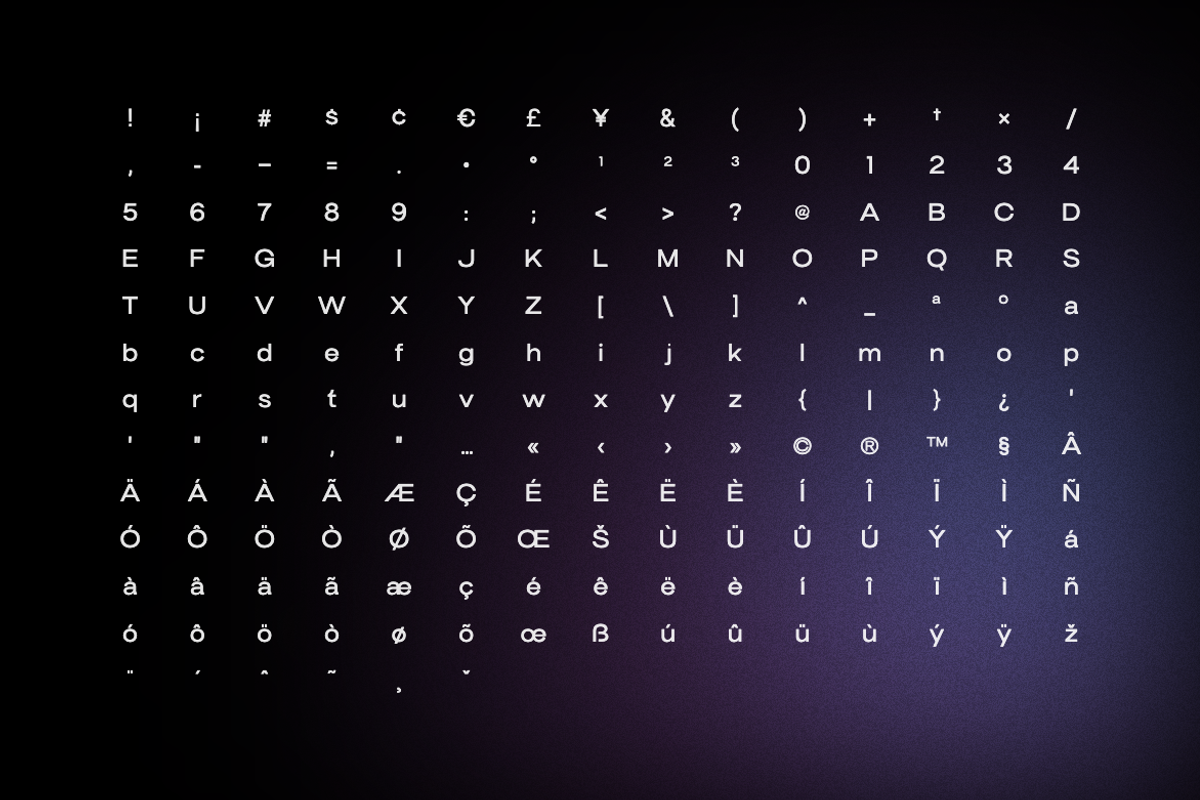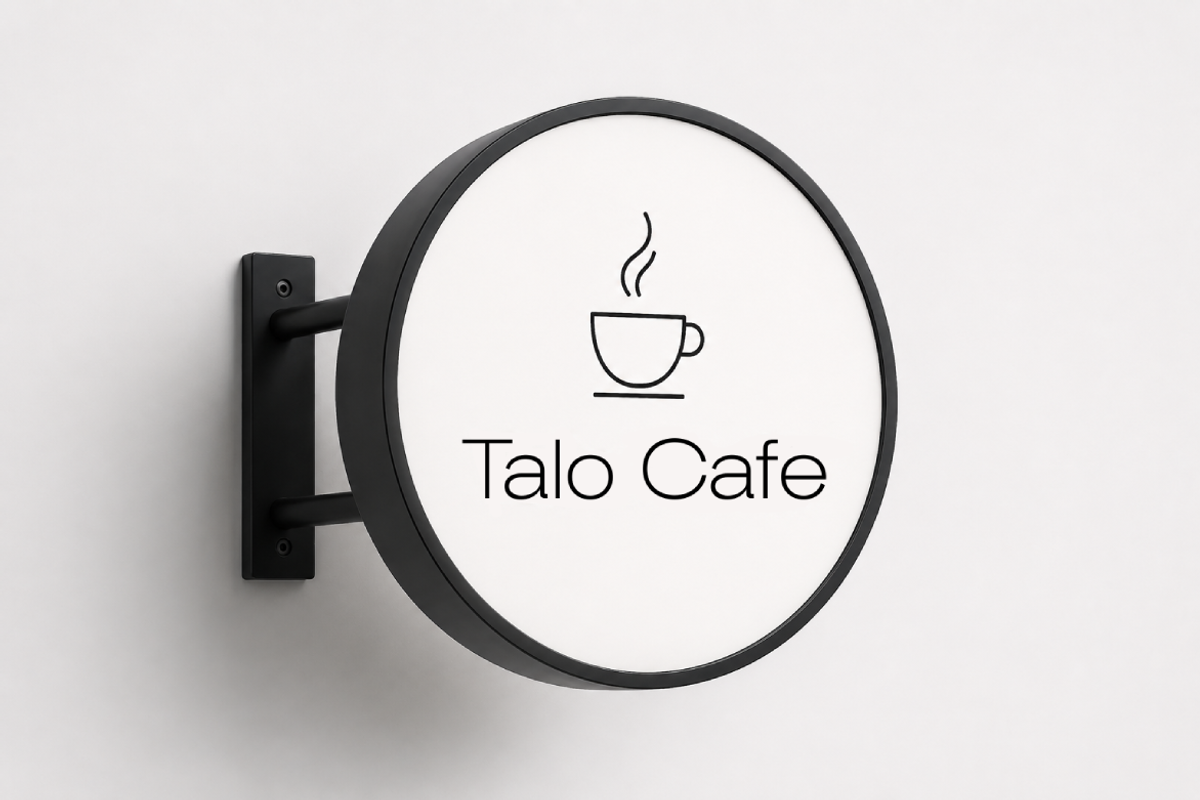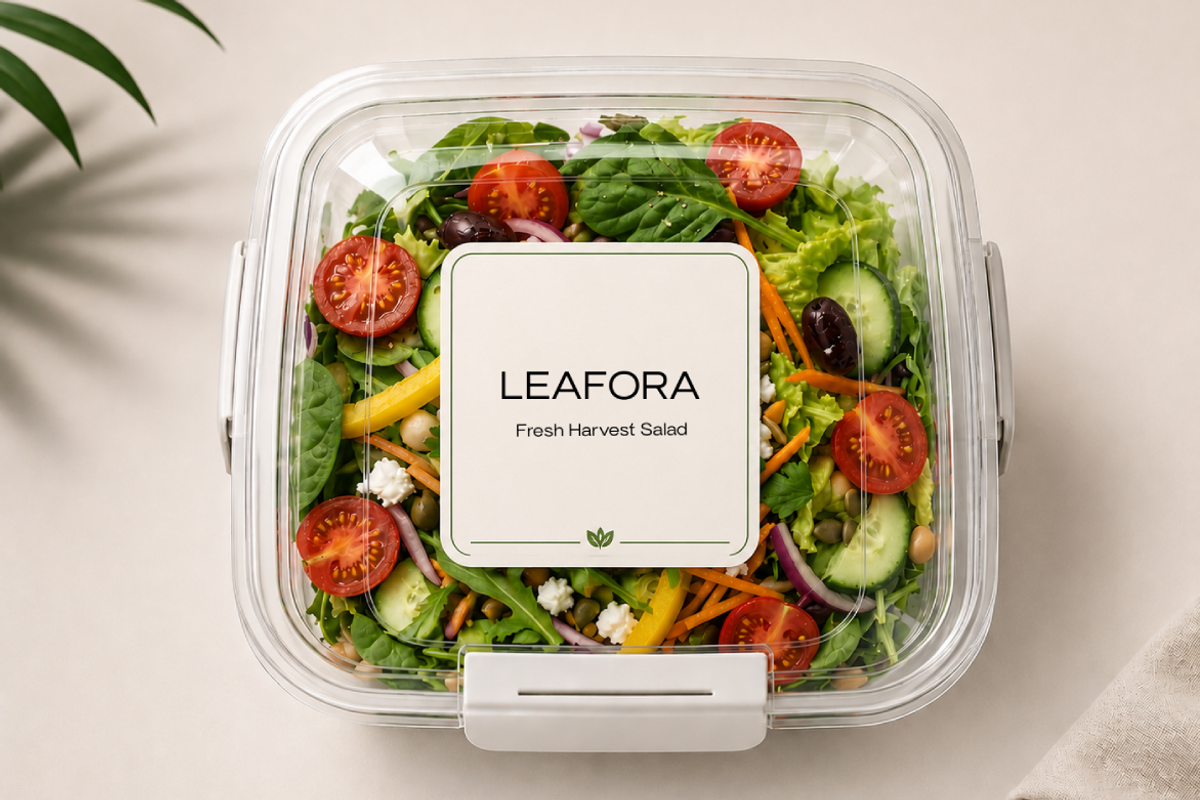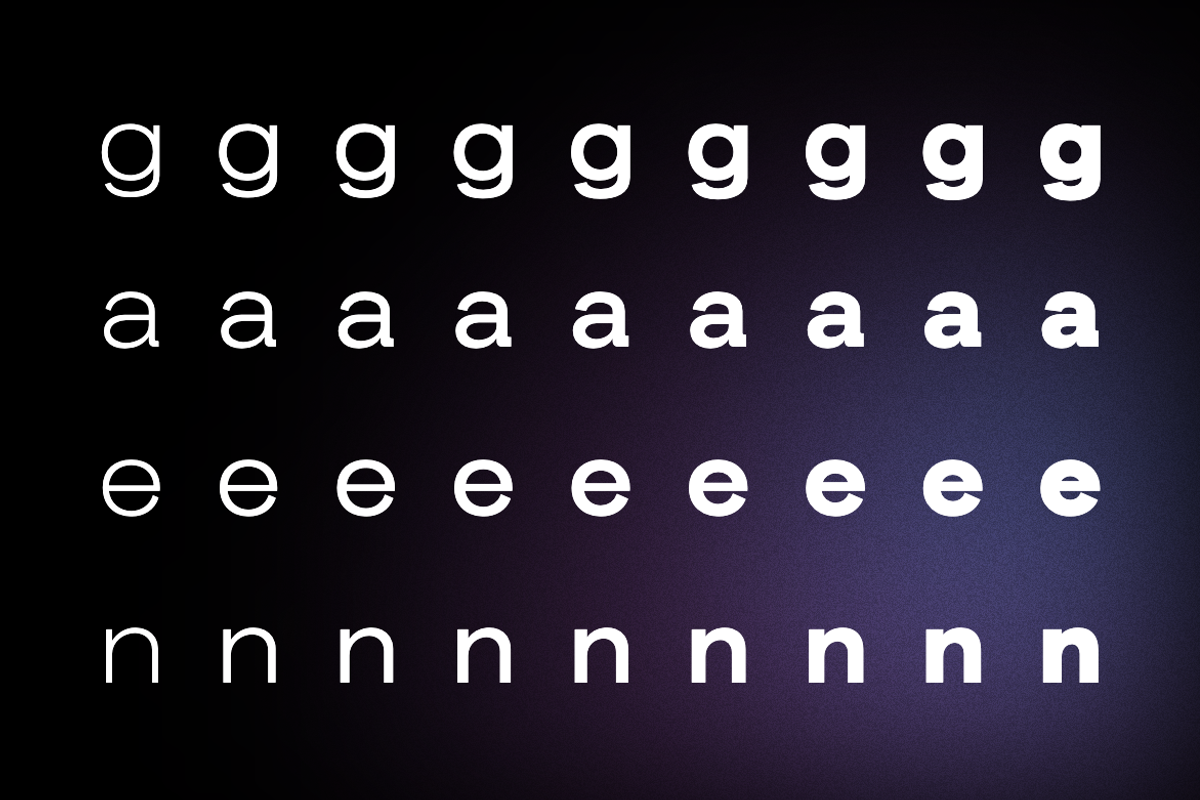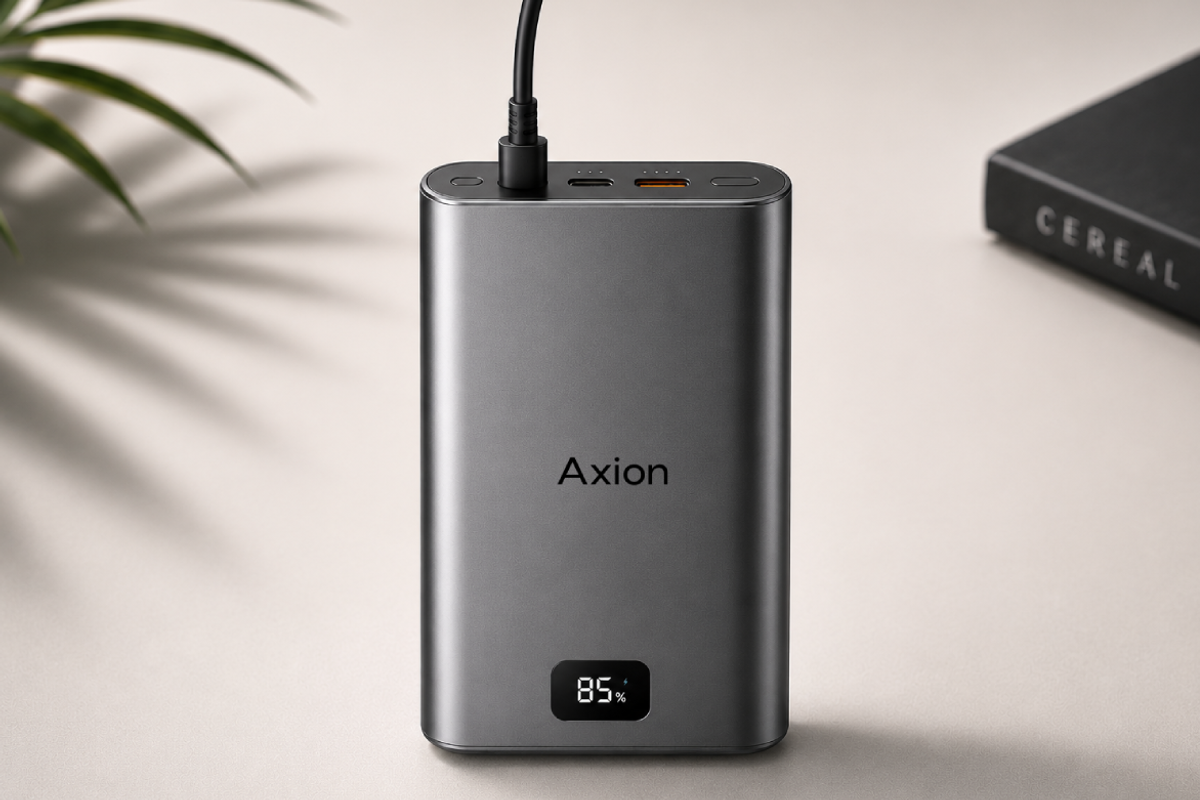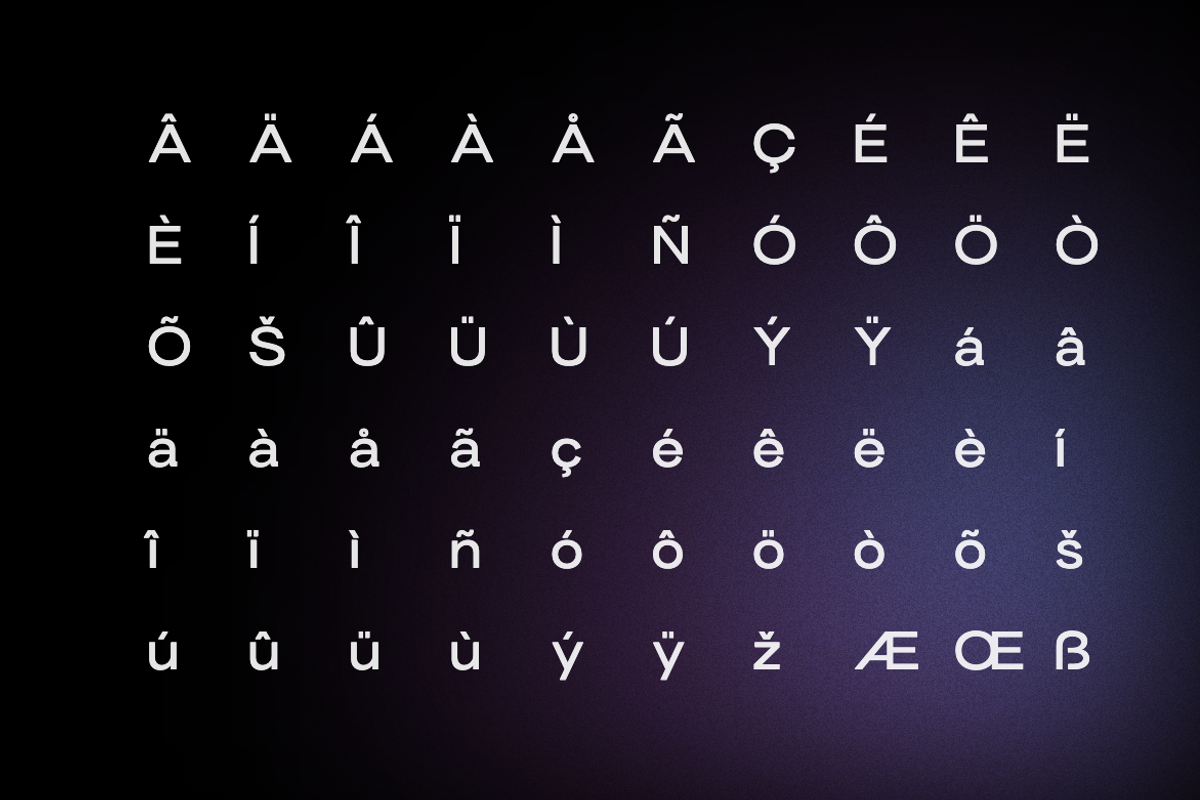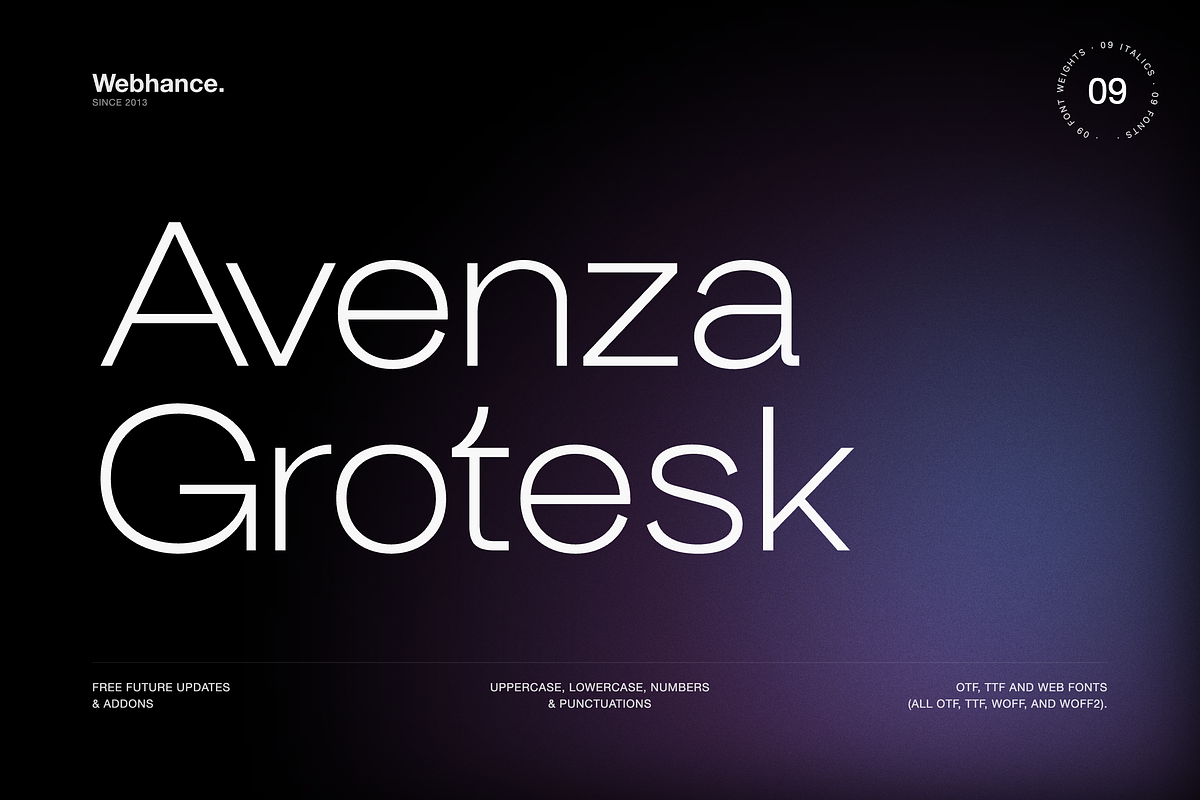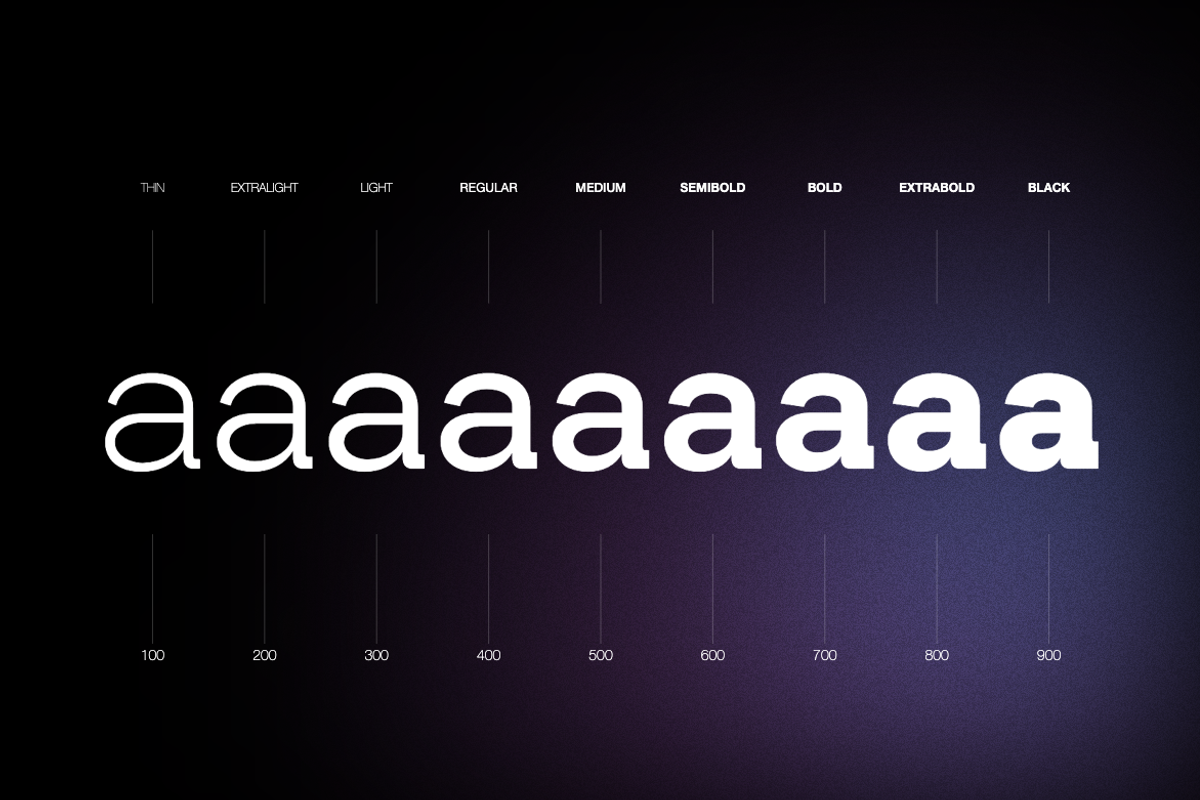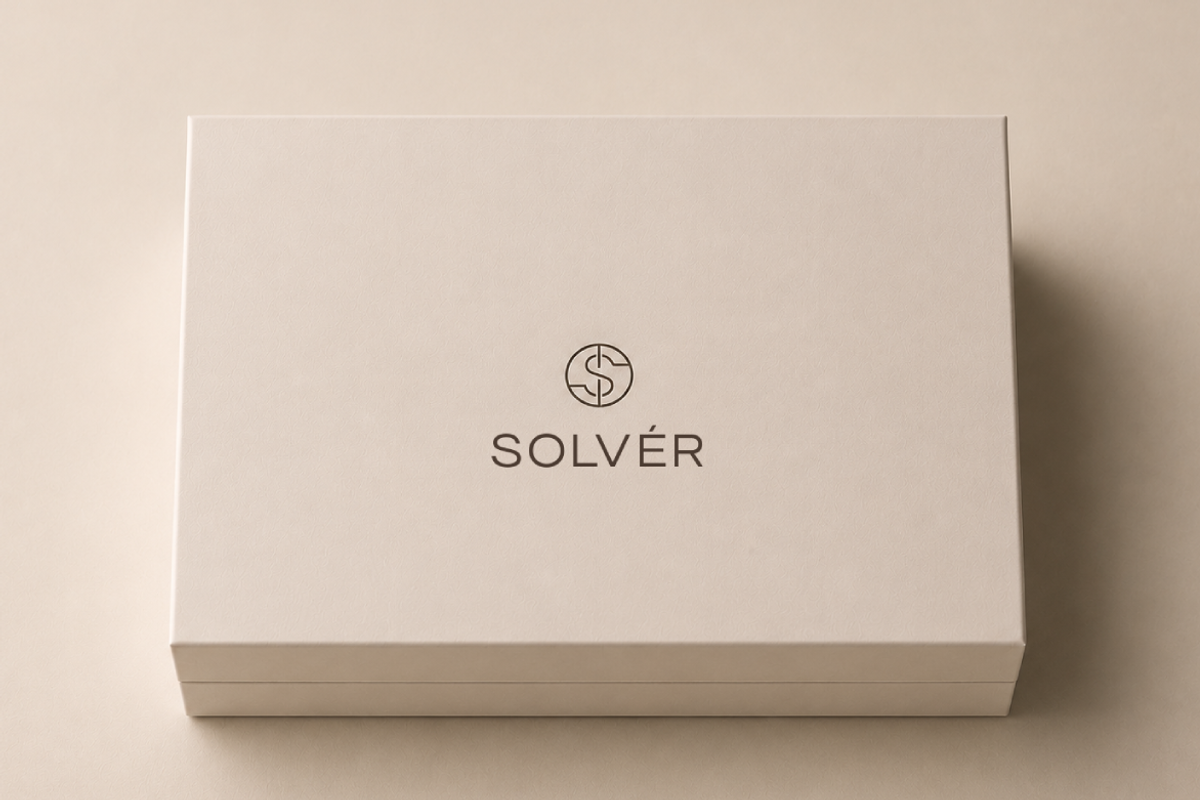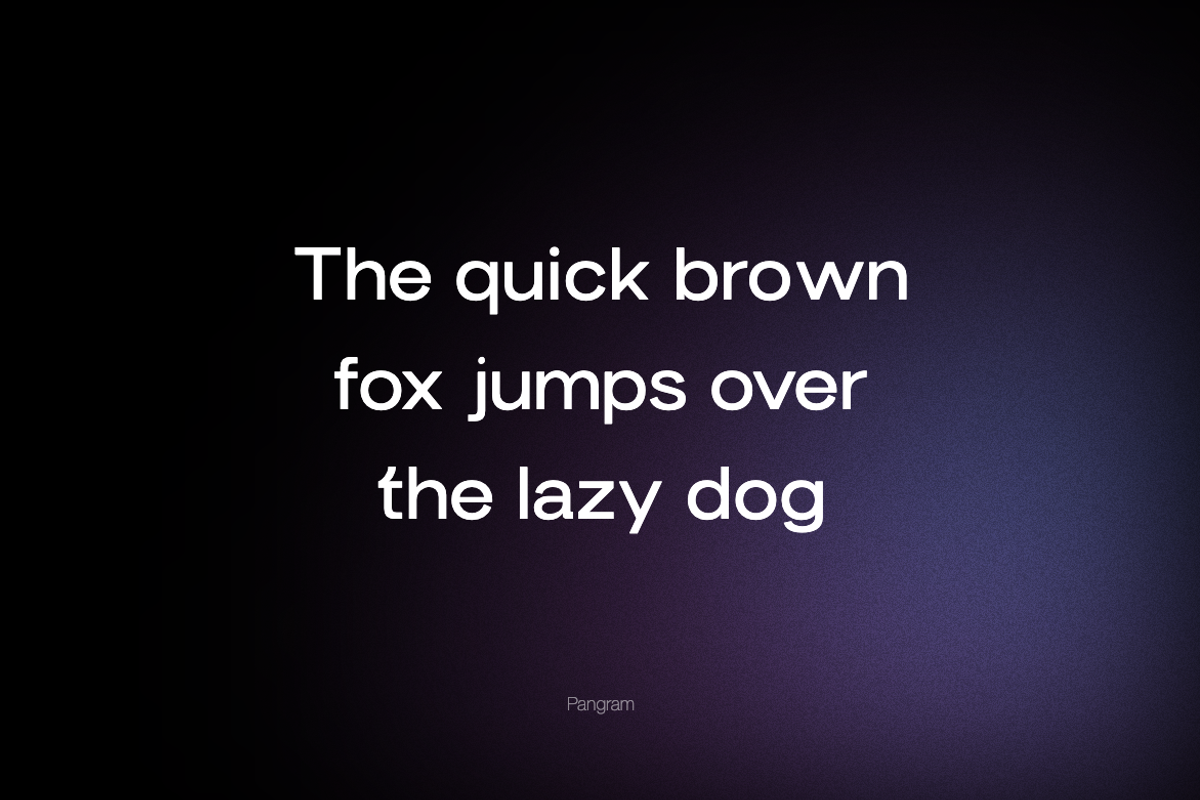
Avenza Grotesk
Avenza Grotesk is a modern sans-serif font designed for versatility and clarity. Its clean lines and balanced proportions make it ideal for branding, logos, and digital content. Perfect for social media, websites, and marketing materials, Avenza Grotesk enhances visual communication across platforms.
Design Traits
Geometric shapes create a contemporary look.
Generous spacing ensures excellent readability.
Neutral tone adapts well to various design contexts.
Clear letterforms enhance legibility on screens.
Multiple weights and italics available.
Extensive character support, including accents.
Optimized for both print and screen performance.
Best Use Cases
Branding: Establish a strong visual identity.
Logos: Create memorable and impactful designs.
UI Design: Enhance user experience with clarity.
Social Media: Stand out on platforms like Instagram and YouTube.
Marketing Materials: Communicate messages effectively.
Why Designers Choose Avenza Grotesk
Versatile for a wide range of projects.
Modern aesthetic appeals to contemporary tastes.
Easy to read at various sizes.
Consistent performance across digital and print formats.
Supports effective branding and marketing efforts.